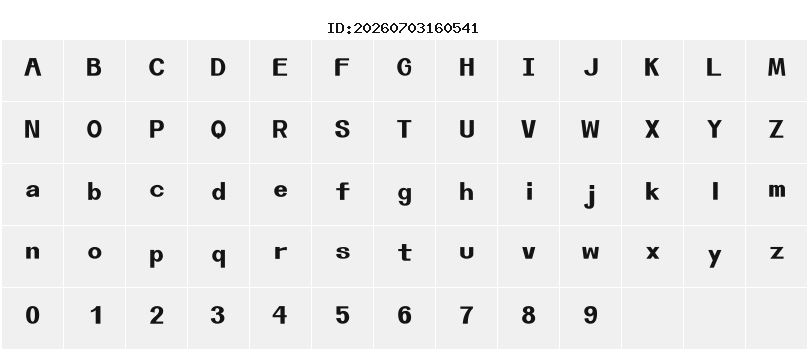
200-上首博雅体 Preview
• Font Name: 200-上首博雅体
• Manufacturer: 上首造字
About 200-上首博雅体.ttf
200-上首博雅体.ttf is a modern, elegant sans-serif font designed for ultimate readability and visual harmony. Perfect for branding, headlines, web design, and print materials.